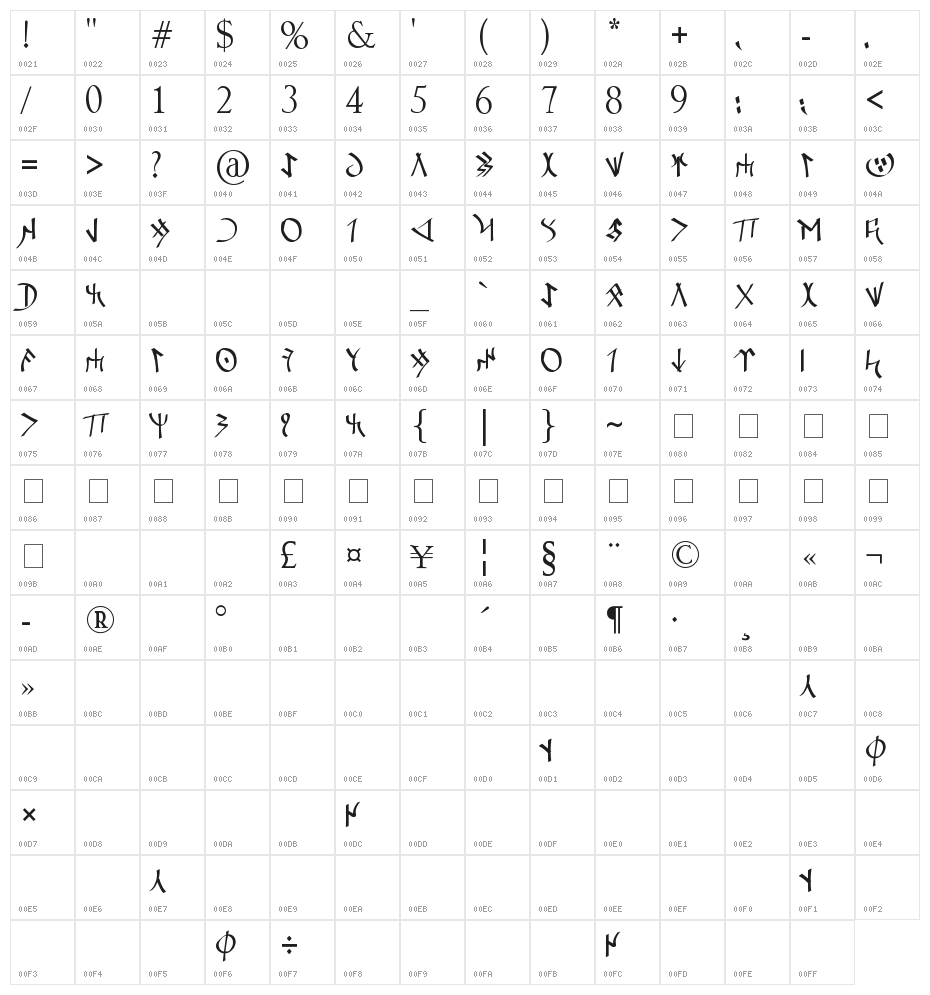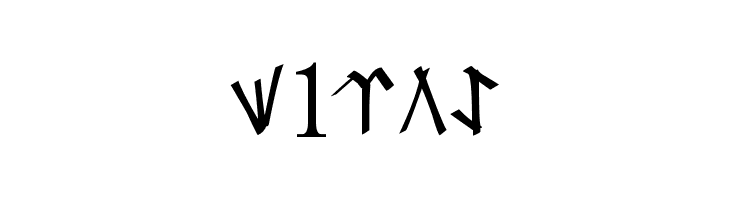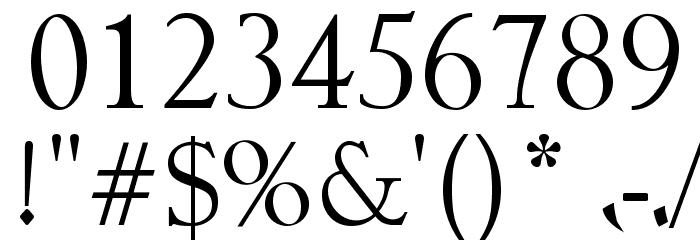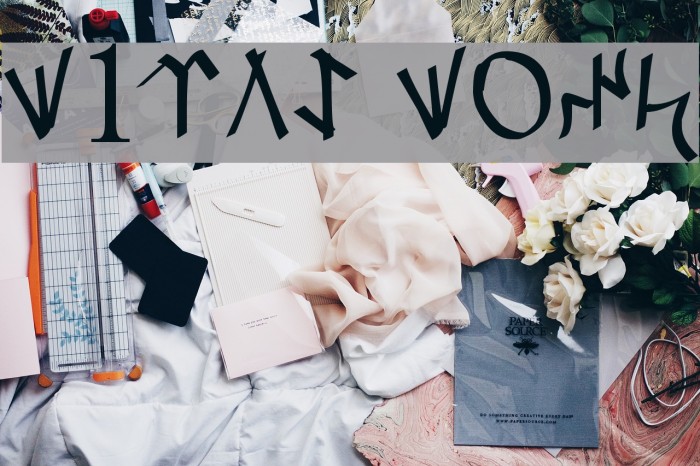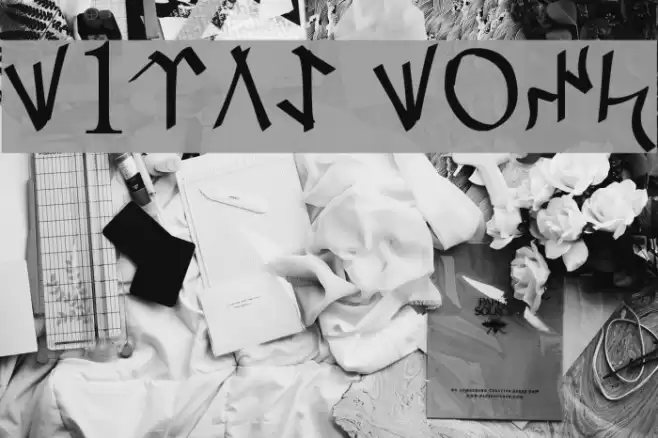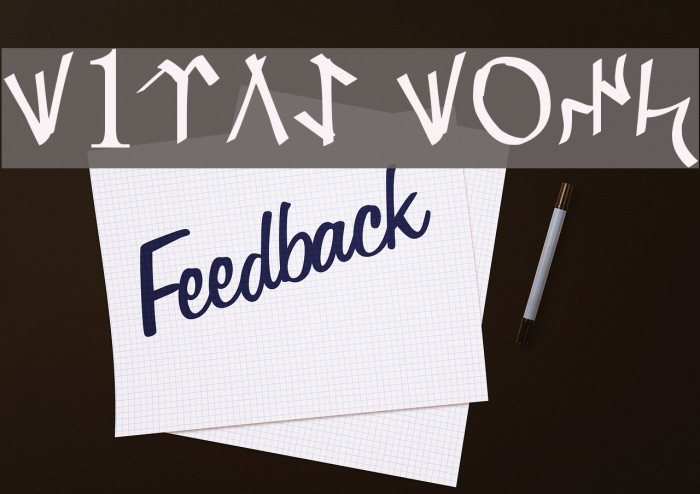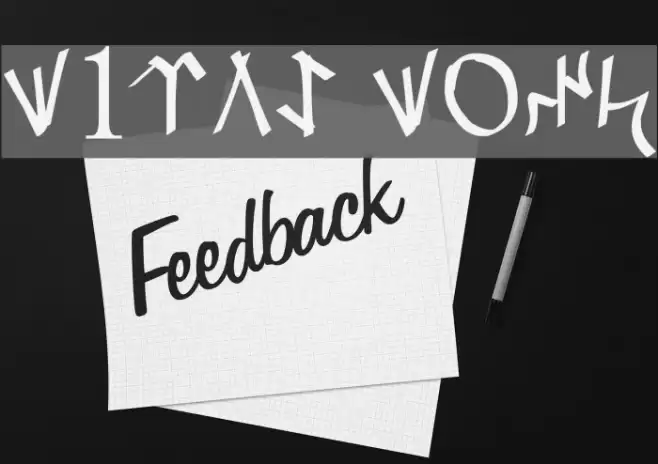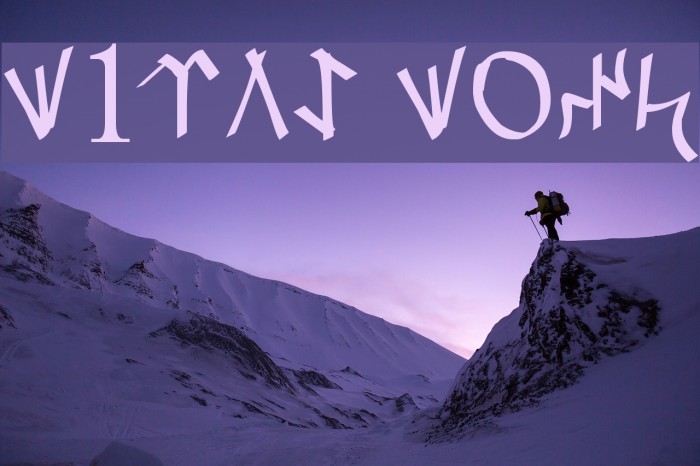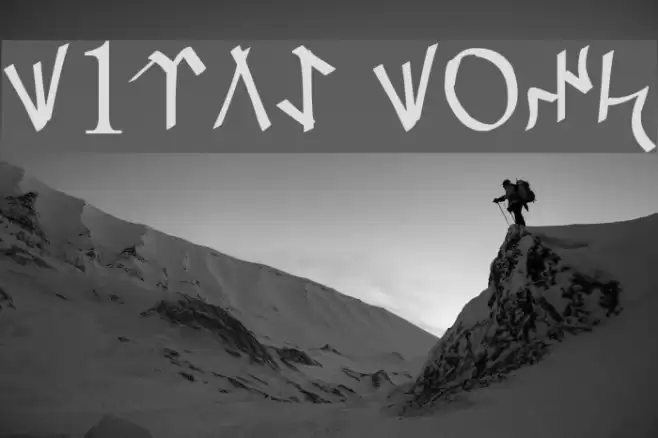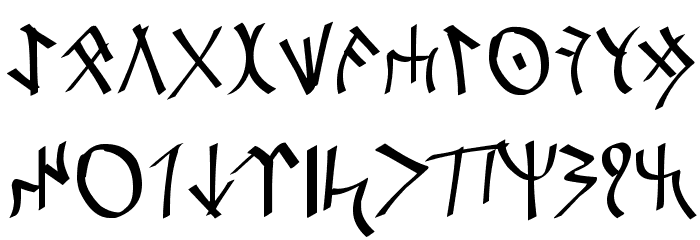
F1rca Font
✎ Old fashioned
| 全体的なスタイル | Mystical, Ancient, Decorative |
| 用途 | Logos, Headlines, Themed Designs |
| おすすめプロジェクト | Ideal for fantasy book covers, game titles, or themed event invitations. |